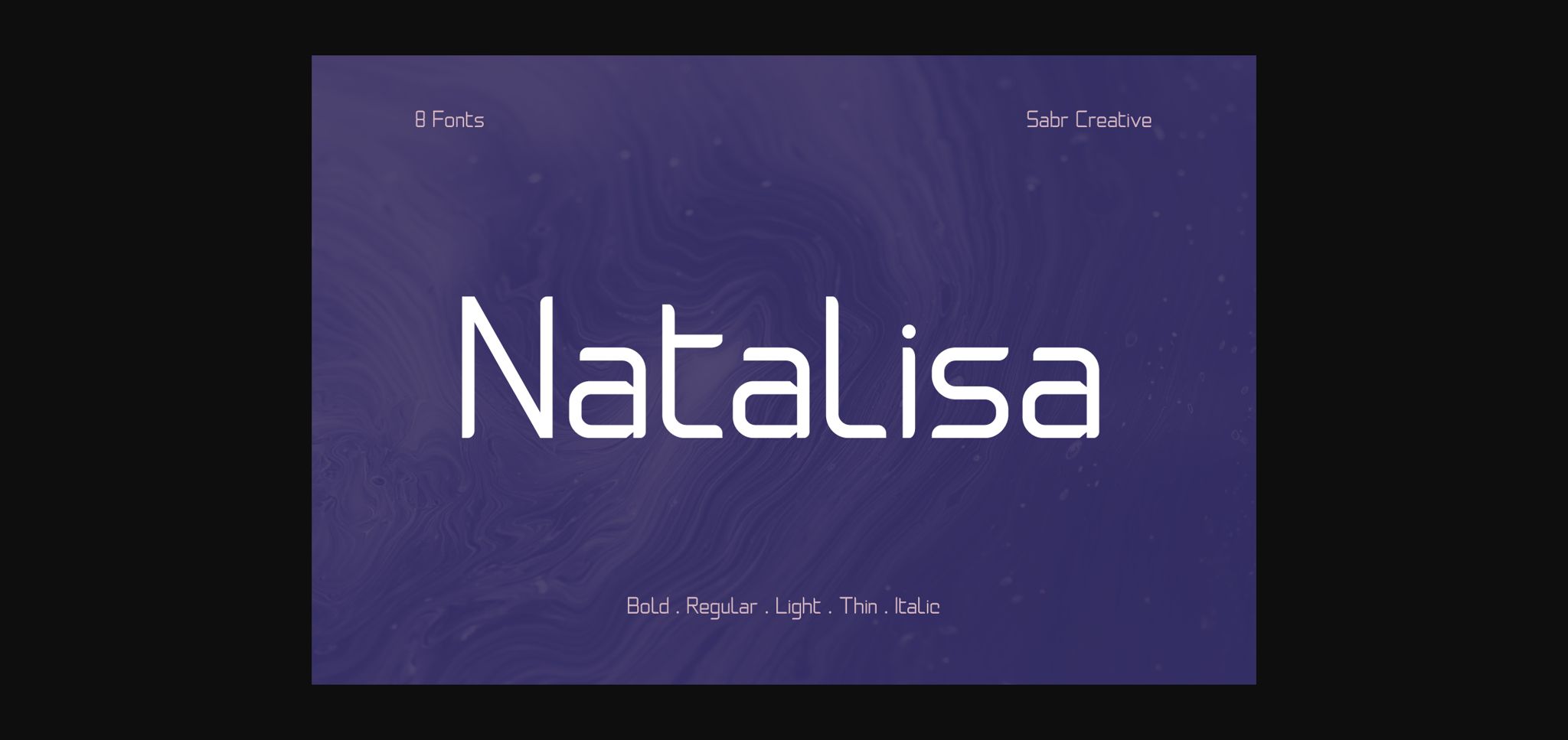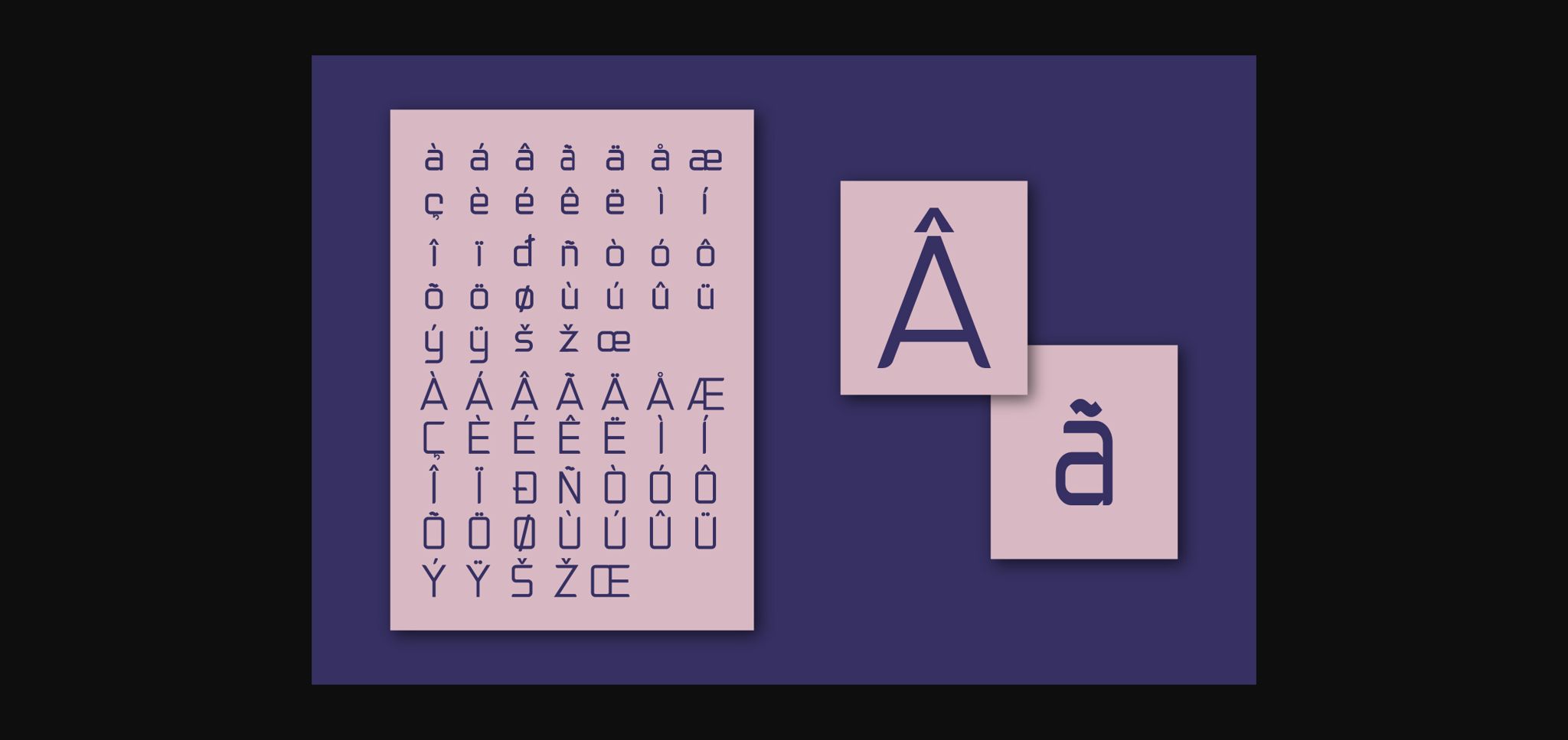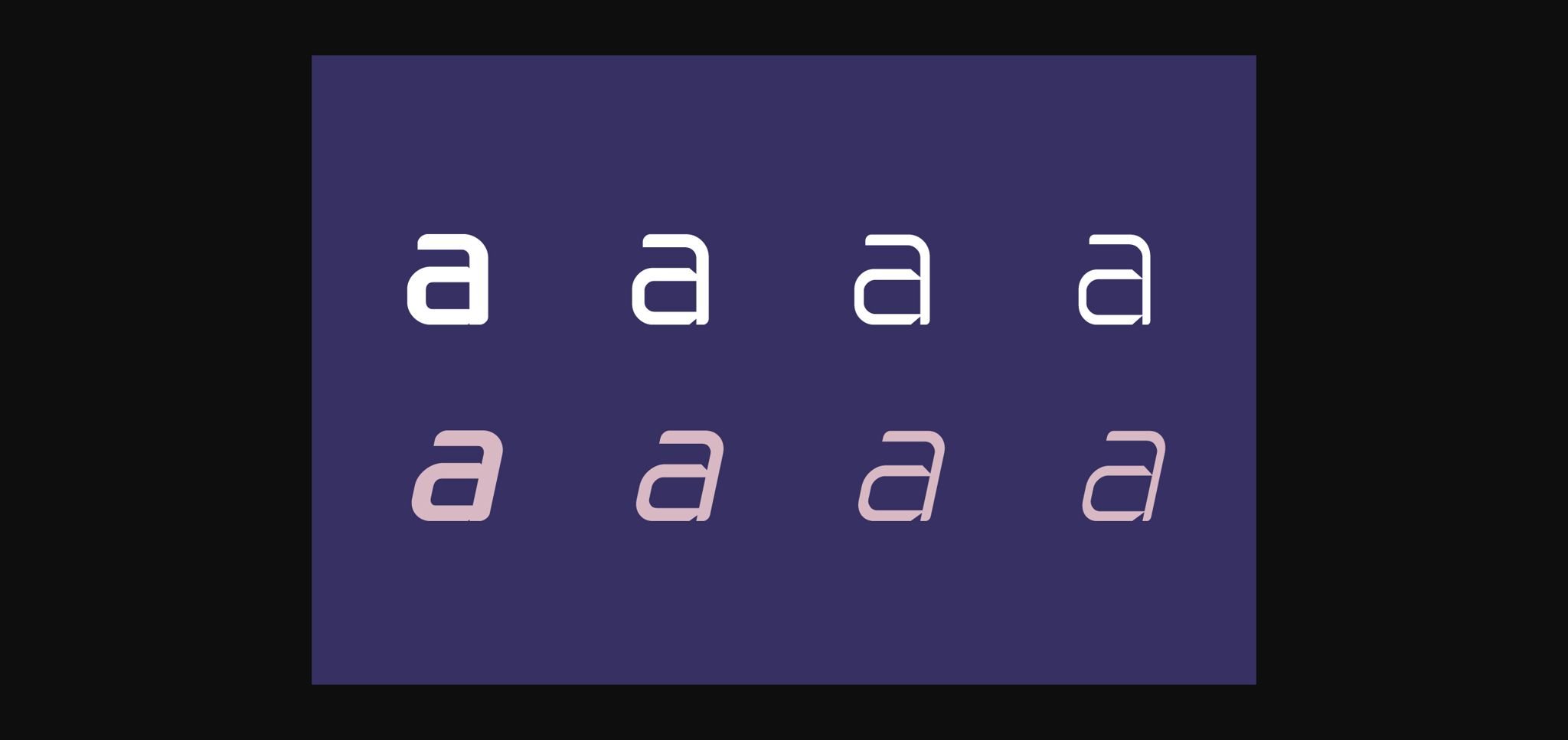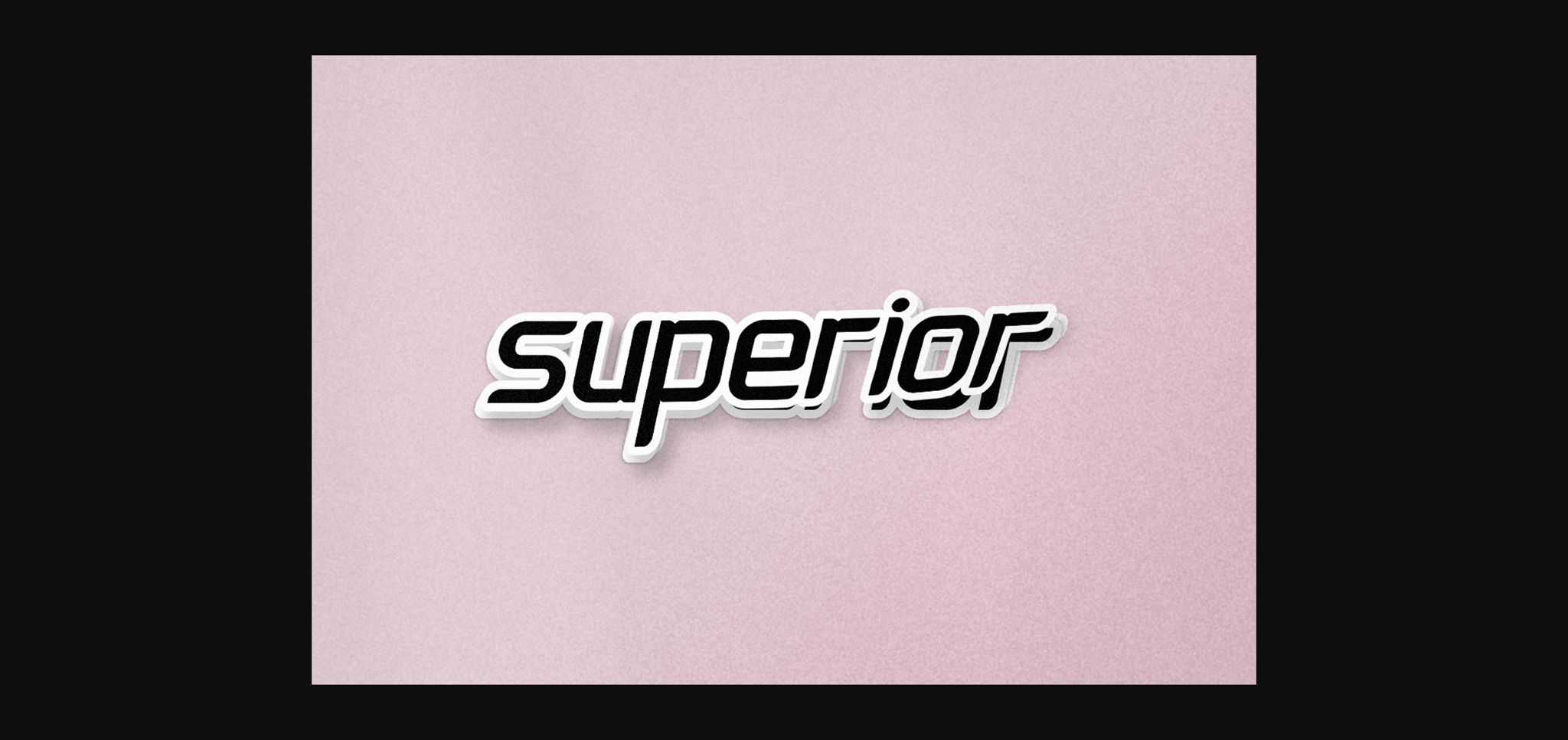
About Natalisa Font
Natalisa embodies fun, quirkiness and authenticity. This enchanting sans serif font will turn any creative idea into a true standout.